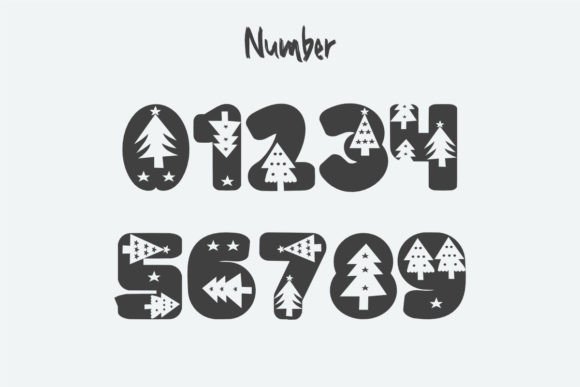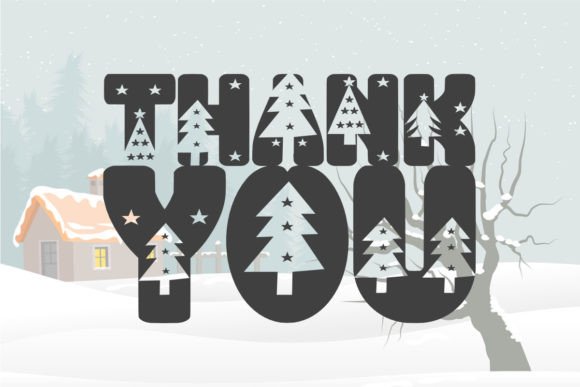
Introduction to Santaz Font Font
Fonts play a crucial role in design, and the Santaz Font font is a typeface that brings both character and versatility to any project. Whether you’re working on a branding project, a website, or a print design, the Santaz Font font offers a unique style that can elevate your work.
Santaz is a decorative font with a winter theme.
No matter the topic, this font will be an incredible asset to your fonts’ library, as it has the potential to elevate any creation .
Key Features of Santaz Font Font
Why Choose Santaz Font Font?
The Santaz Font font is more than just a typeface – it’s a design tool that helps you communicate your message with style and clarity. Its unique character set and versatile design make it suitable for a wide range of applications, from elegant invitations to bold headlines.
With its carefully crafted letterforms and balanced proportions, the Santaz Font font ensures readability and visual appeal across all mediums.
What makes Santaz Font font special?
The Santaz Font font stands out with its unique design, exceptional readability, and versatility across various design applications.